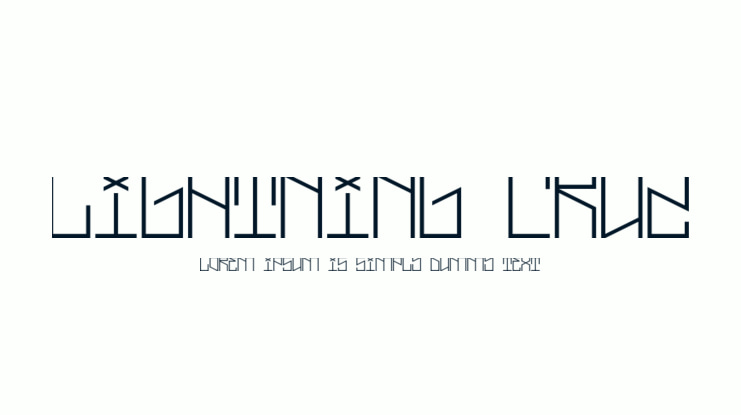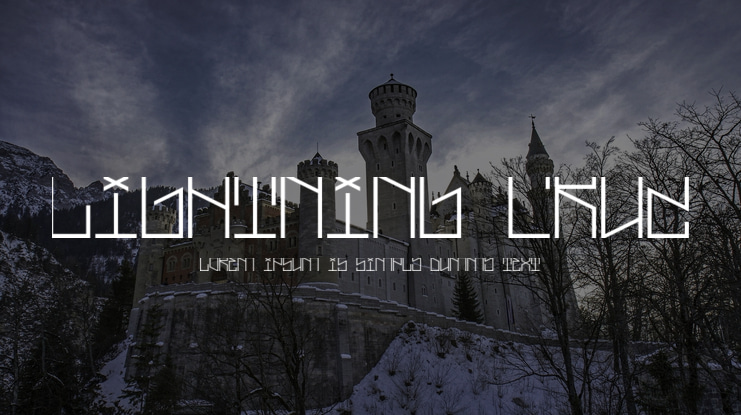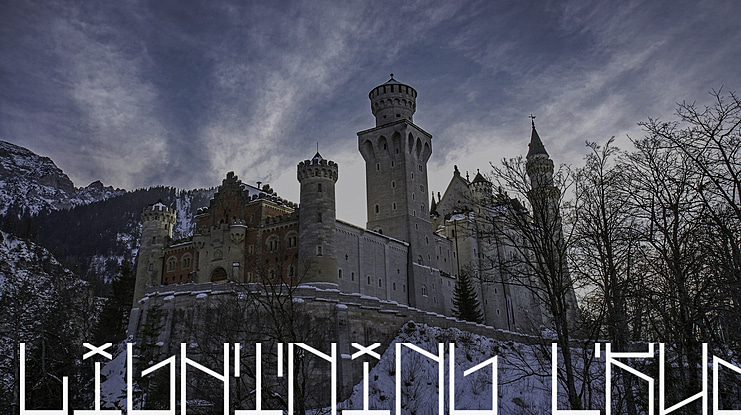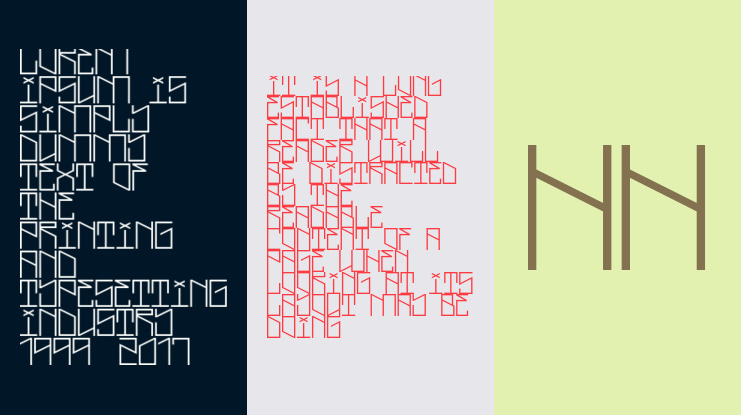
Lightning Cruz Font
This is a modular geometric font blending the form of fonts like Phoenixians with west coast graffiti details. Best used in italics. Lightning Cruz looks amazing in oblique.